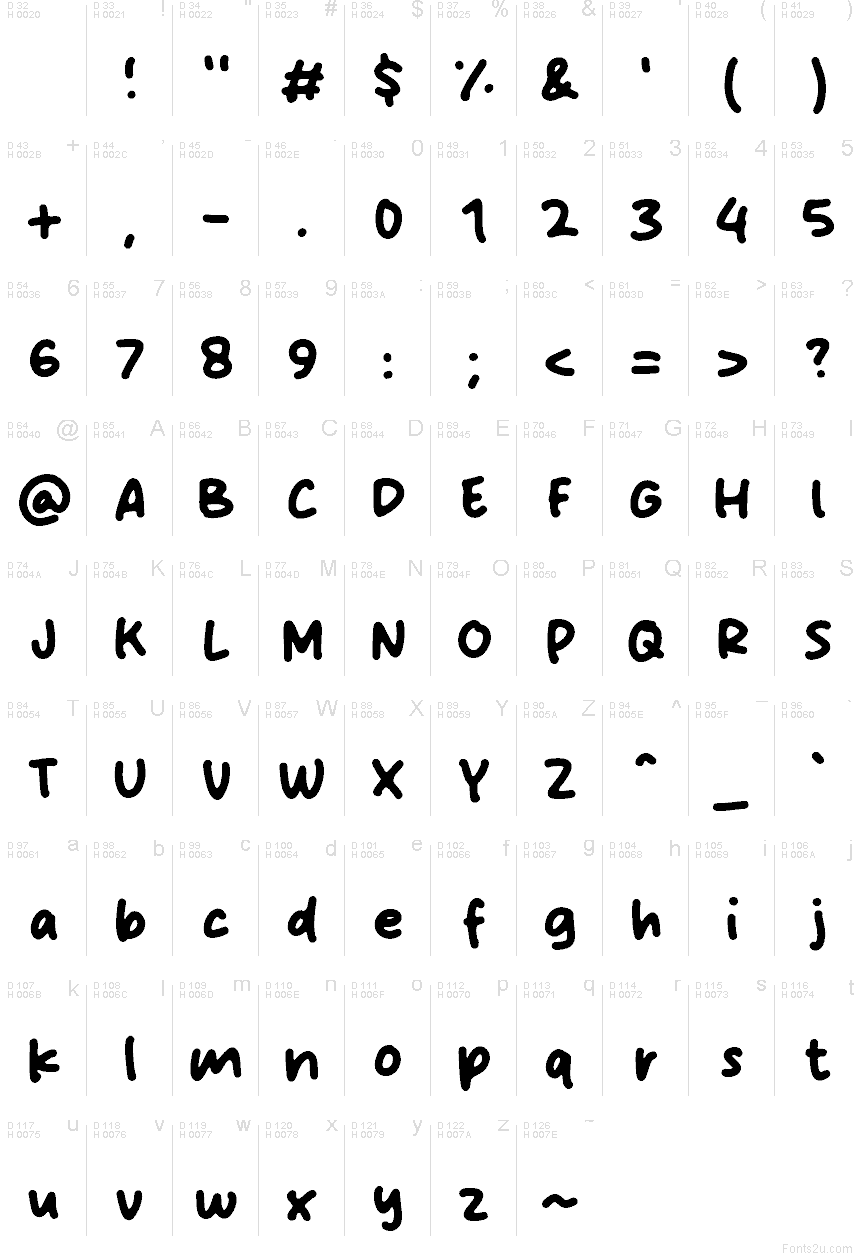
Smothy Cream
Smothy Cream font by MJType is a free handwritten typeface with soft, inky strokes that feel like they’ve been piped from a frosting bag. The rounded forms are bold and bouncy, with just enough wobble to feel human without getting messy. Each letter looks thick, cozy, and slightly squished, giving headlines a friendly, edible charm that’s hard to ignore.
Using Smothy Cream, this free font really shines on bakery logos, ice cream packaging, kids’ product labels, café menus, social media graphics, and playful poster titles. Its chunky shapes hold up well at larger sizes, where the creamy curves can breathe. Pair it with a clean, light sans serif for body text to keep things readable while Smothy Cream handles the fun, attention-grabbing moments.